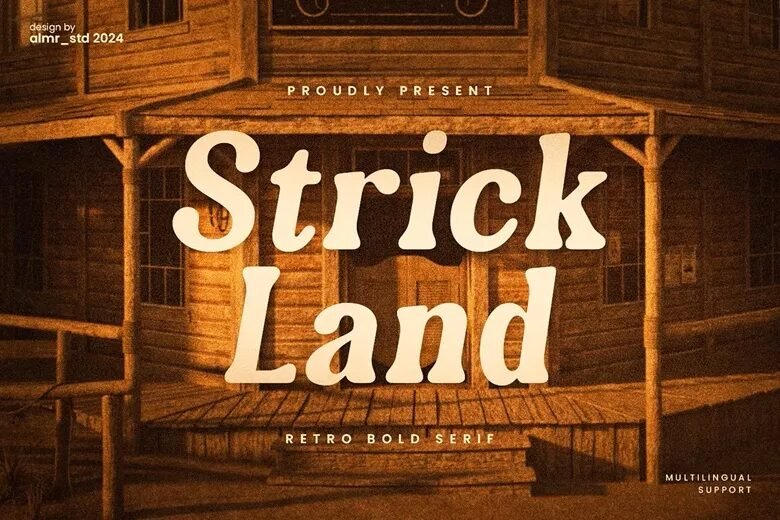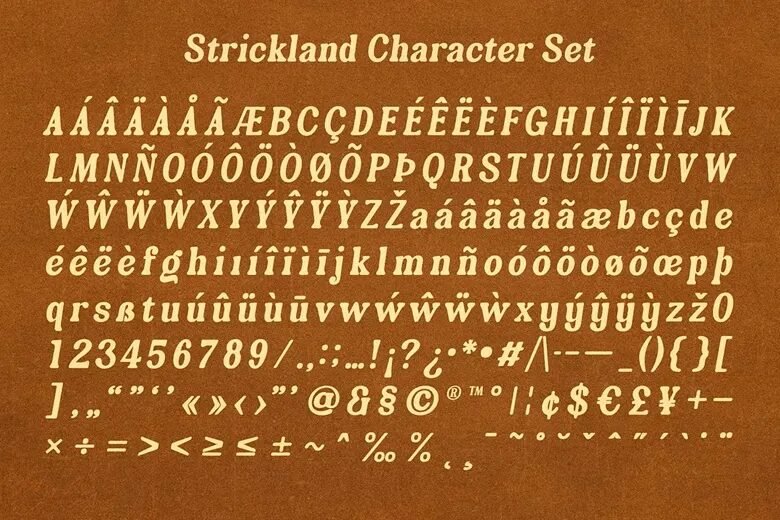
Strickland Font is a simple elegant retro bold serif typeface that is best applied as display font in headings, logos, branding, magazines, product packaging and invitation.
Strickland Font Serif Font